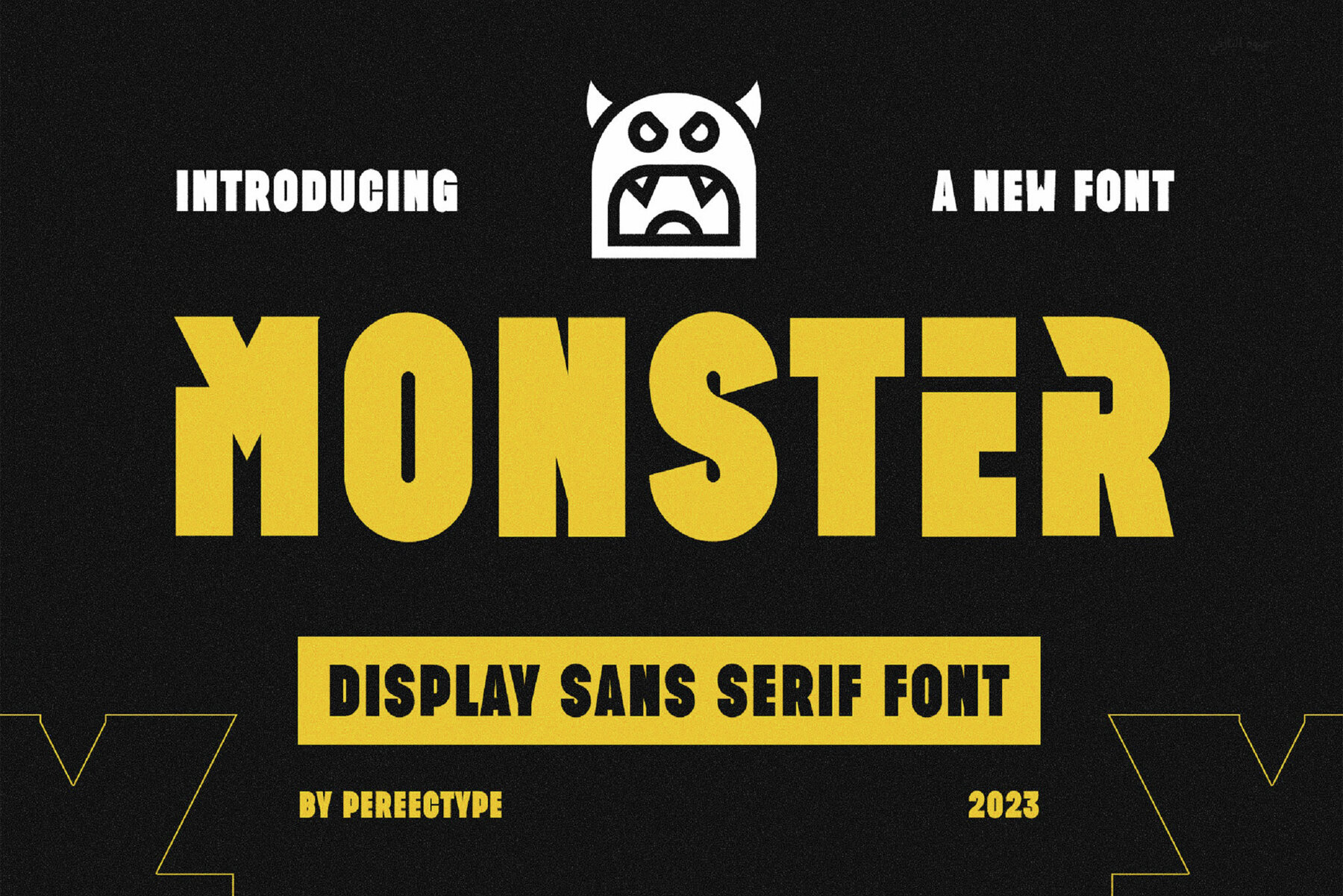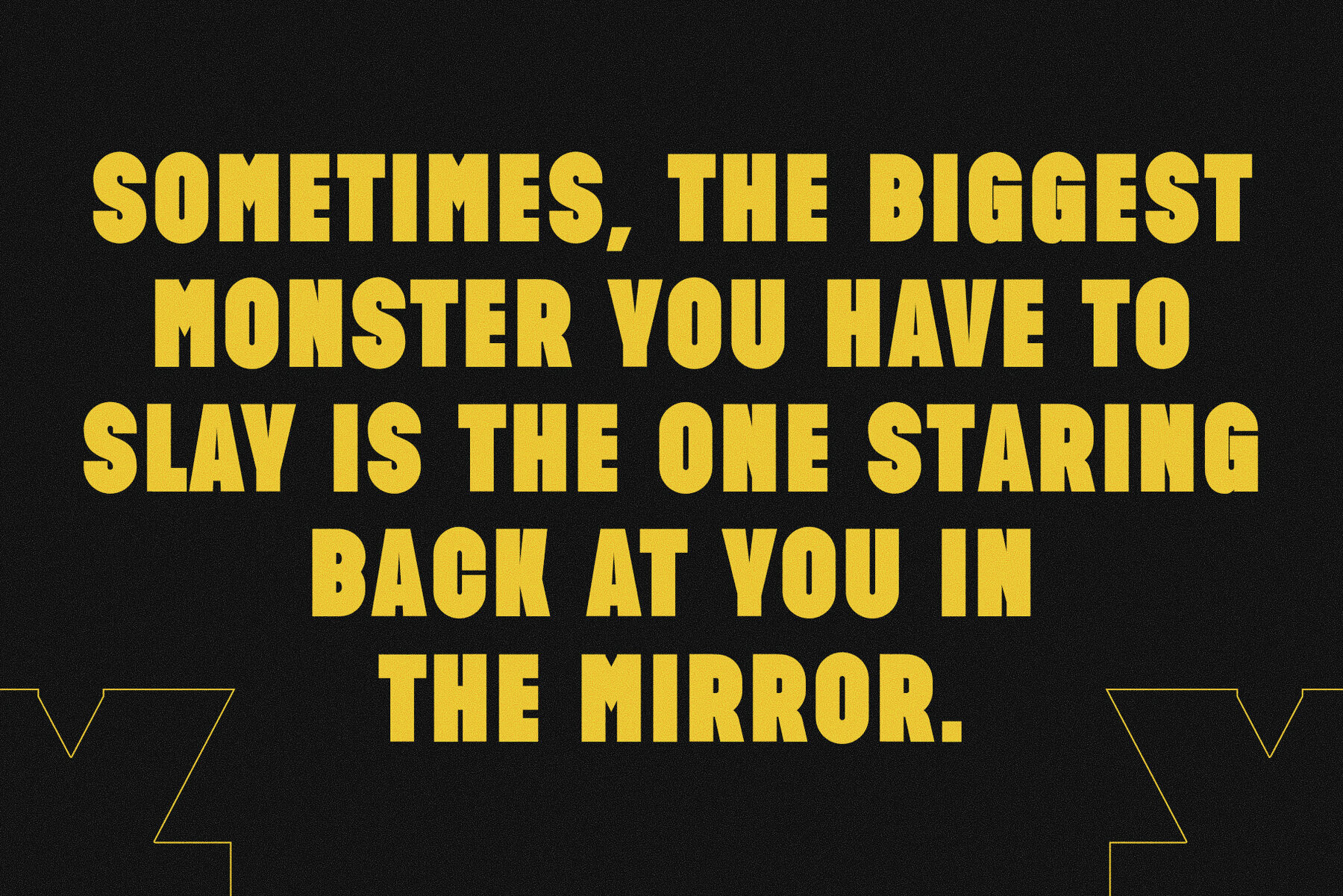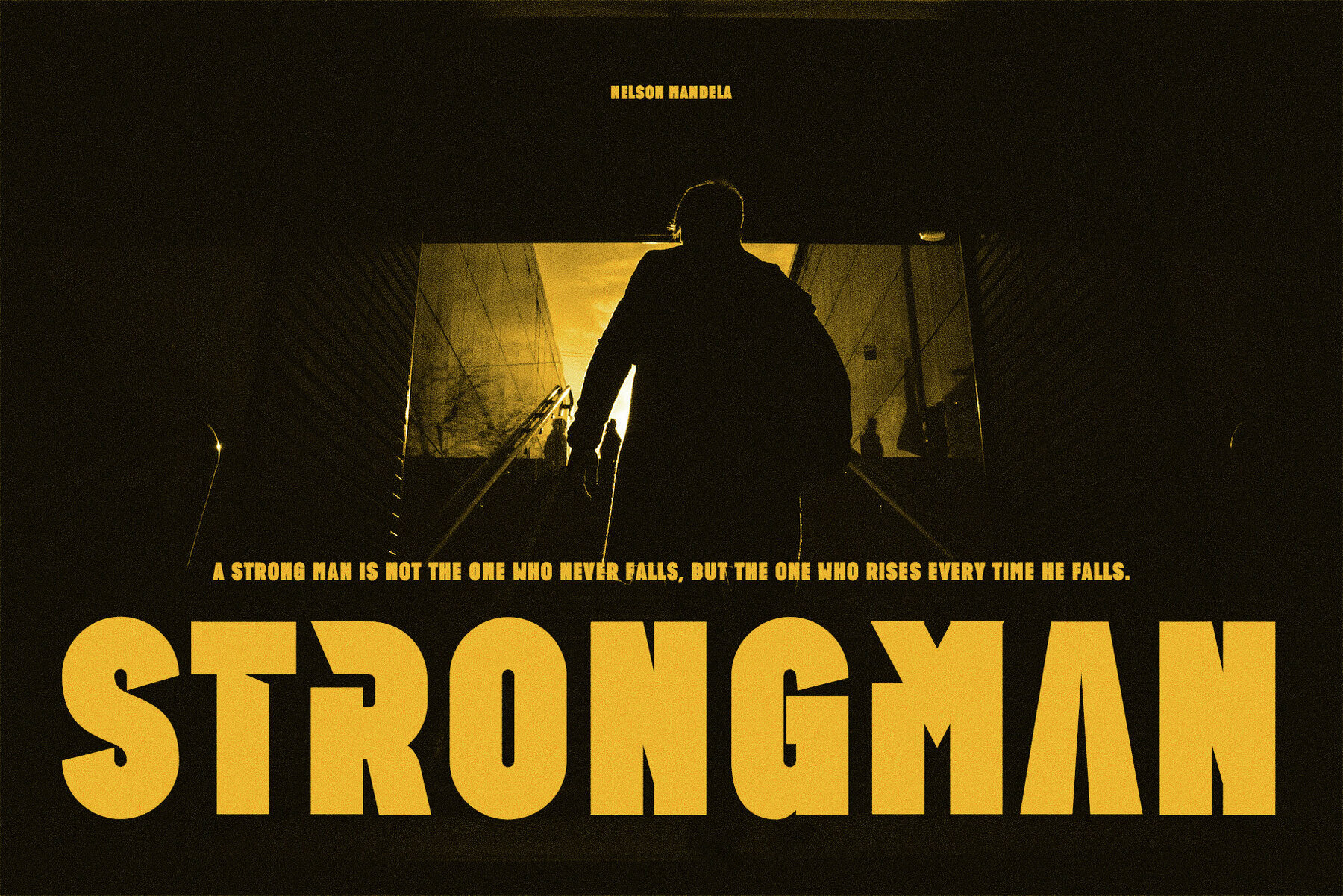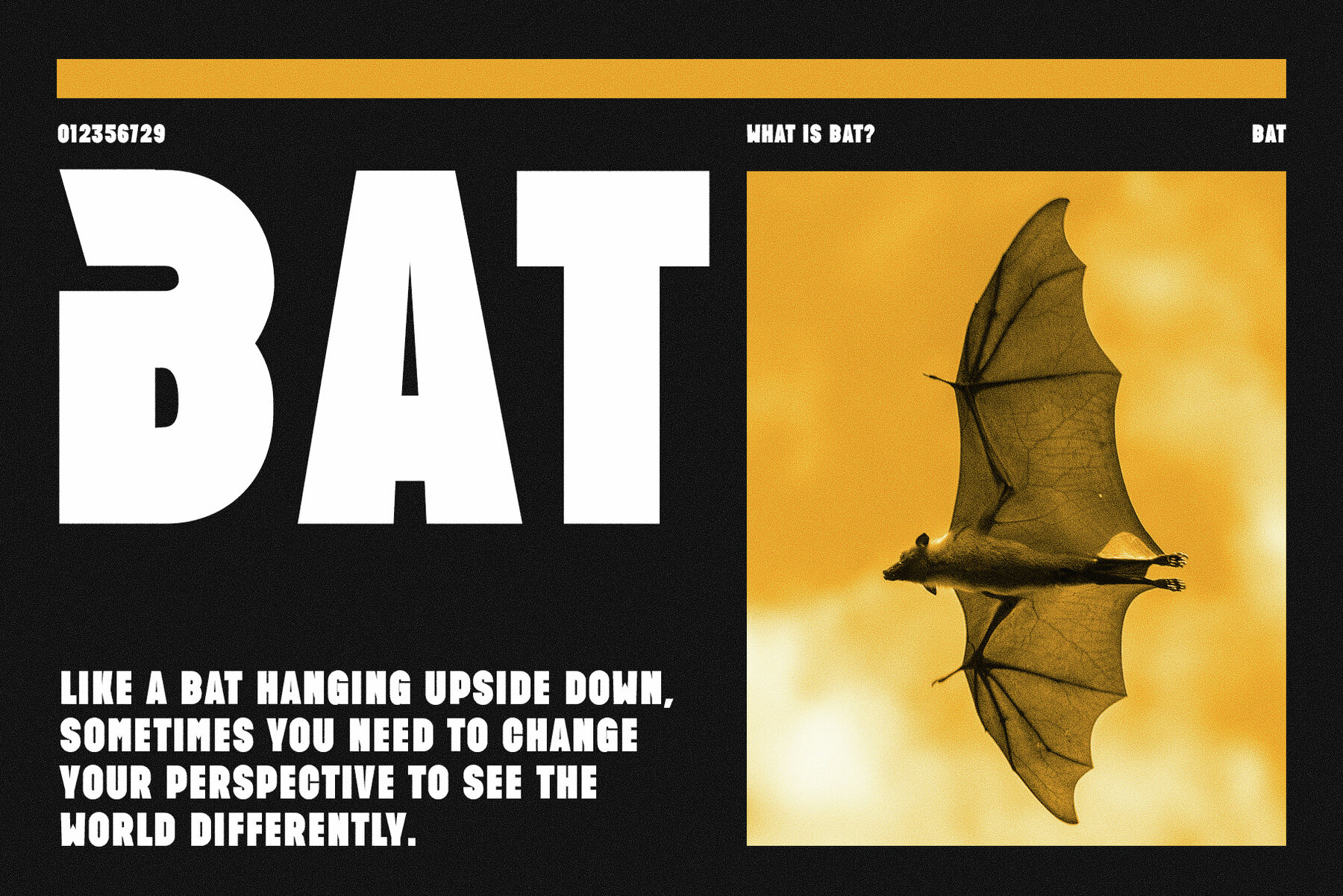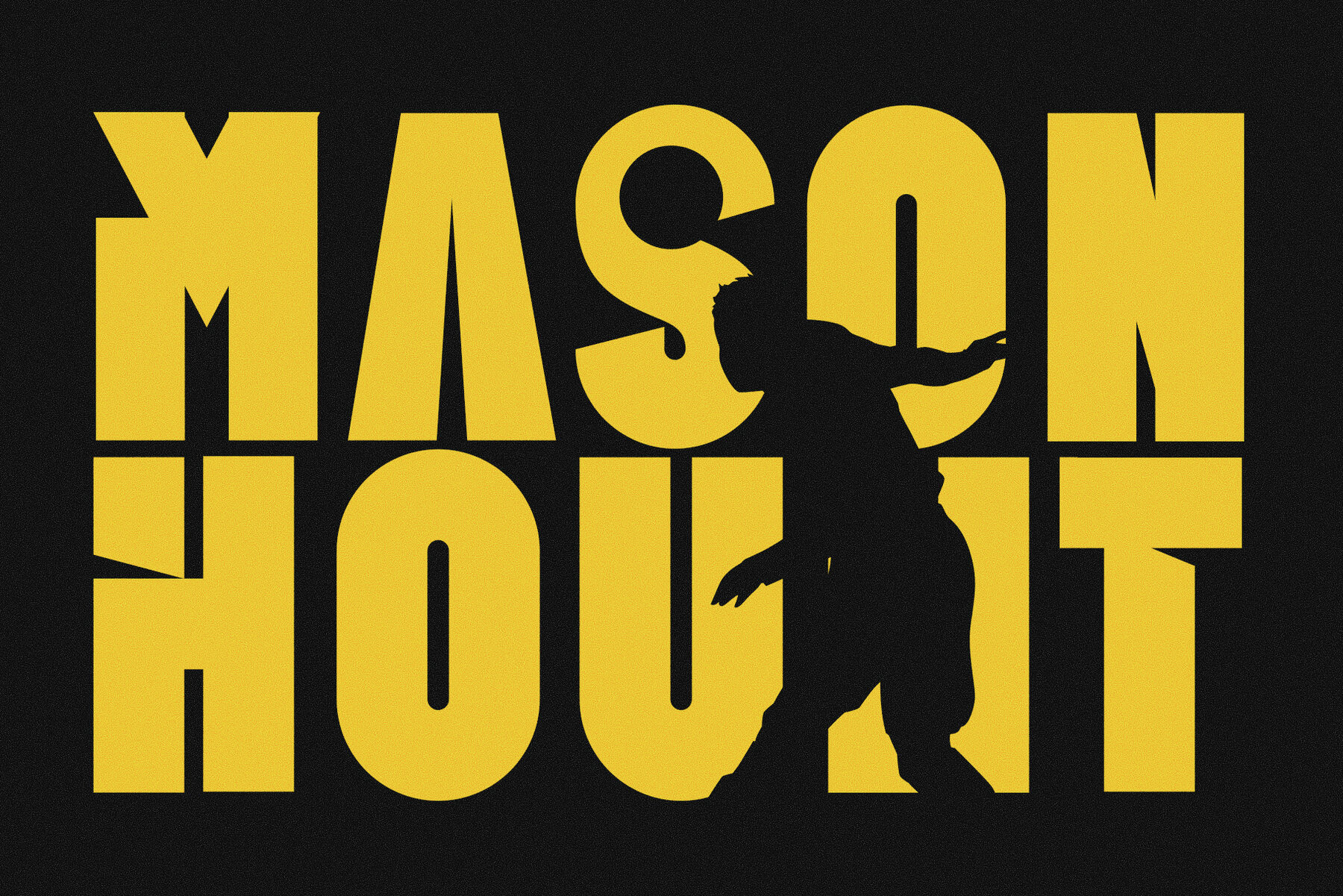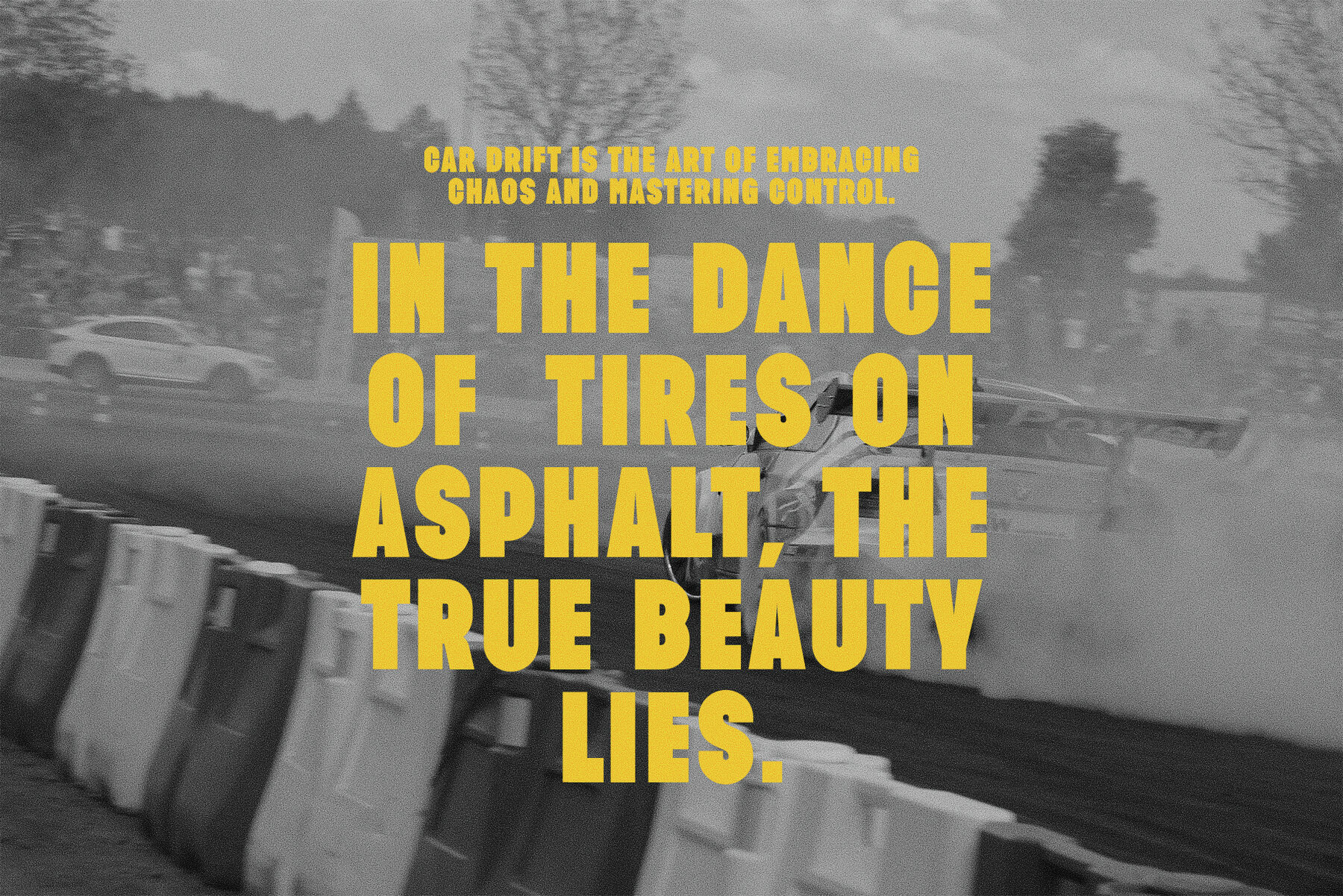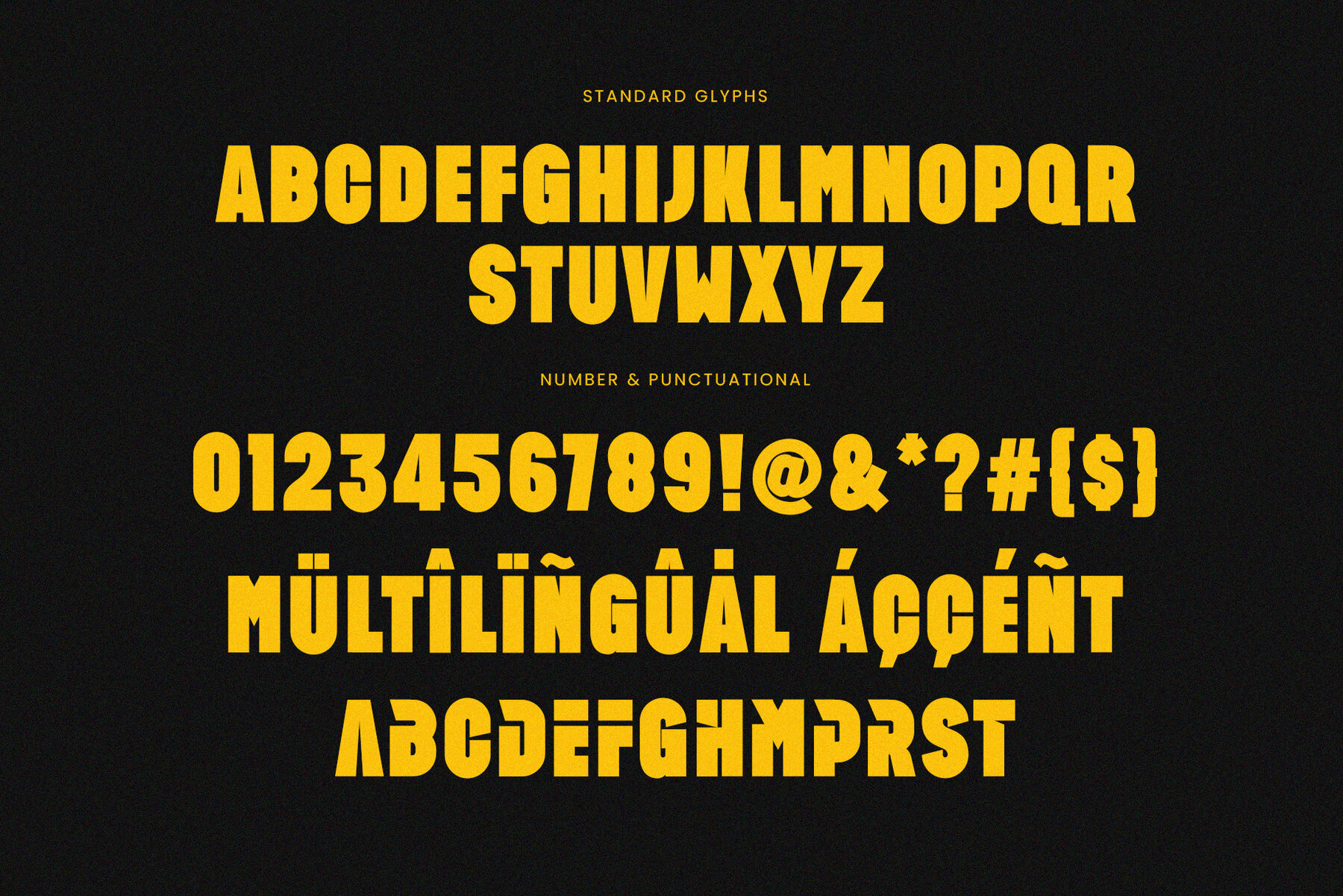
Monster Sans Font
Monster Sans, designed by Setyo Wati, is a meticulously crafted sans serif font emphasizing balance and readability. It's perfect for various graphic design projects, including brochures, videos, advertising, branding, logos, magazines, layout designs, posters, social media templates, and video games.
Font Features:
- Extensive character set
- Numbers & punctuation
- Accented characters for Western European languages